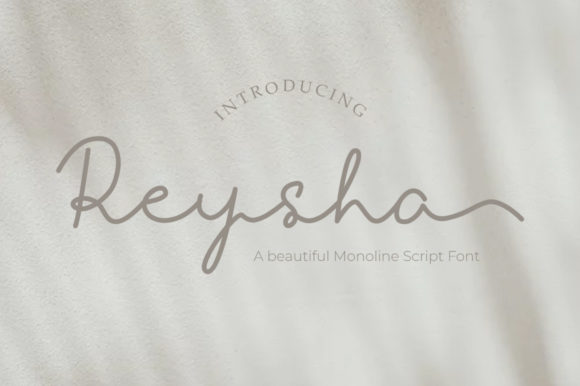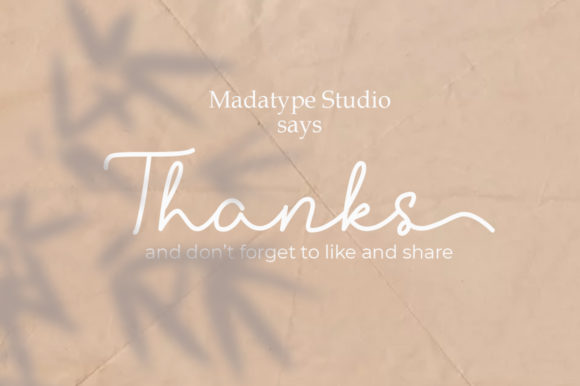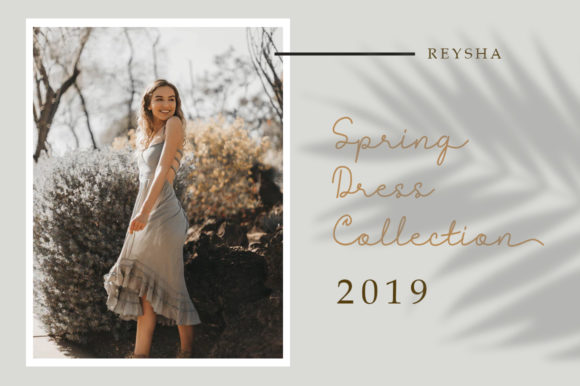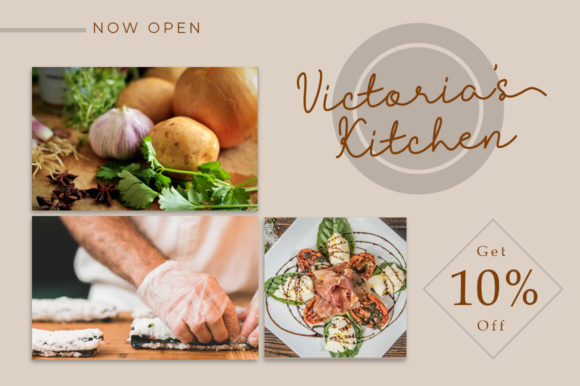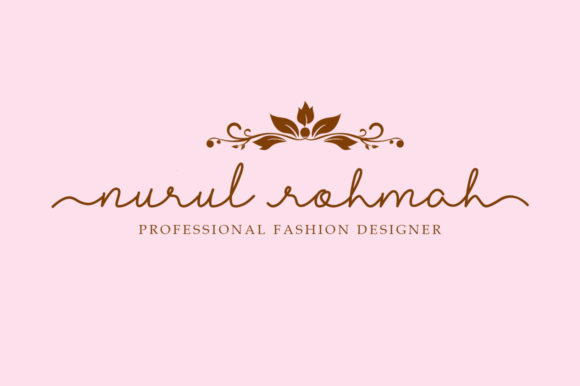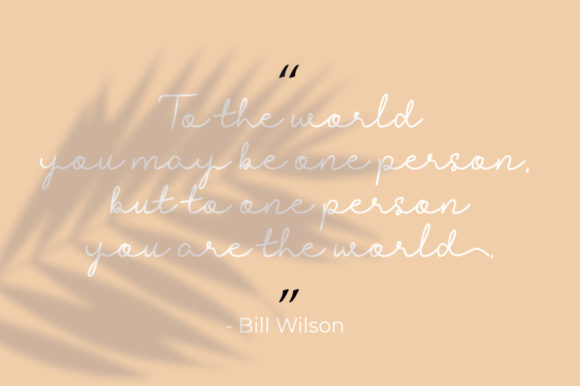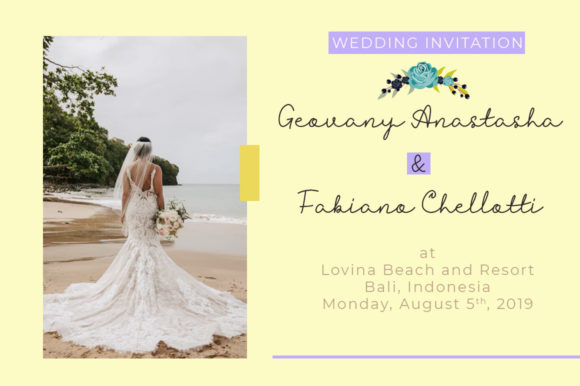
Reysha Font
About Reysha Font
Reysha is a beautiful hand-written monoline font with an incredibly smooth style and natural ligatures! Get inspired by its contemporary elegance.